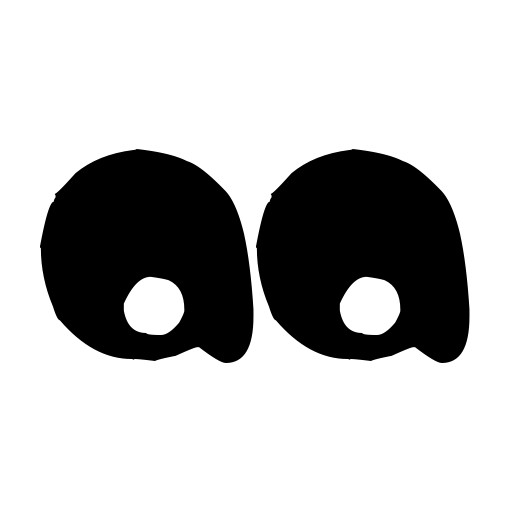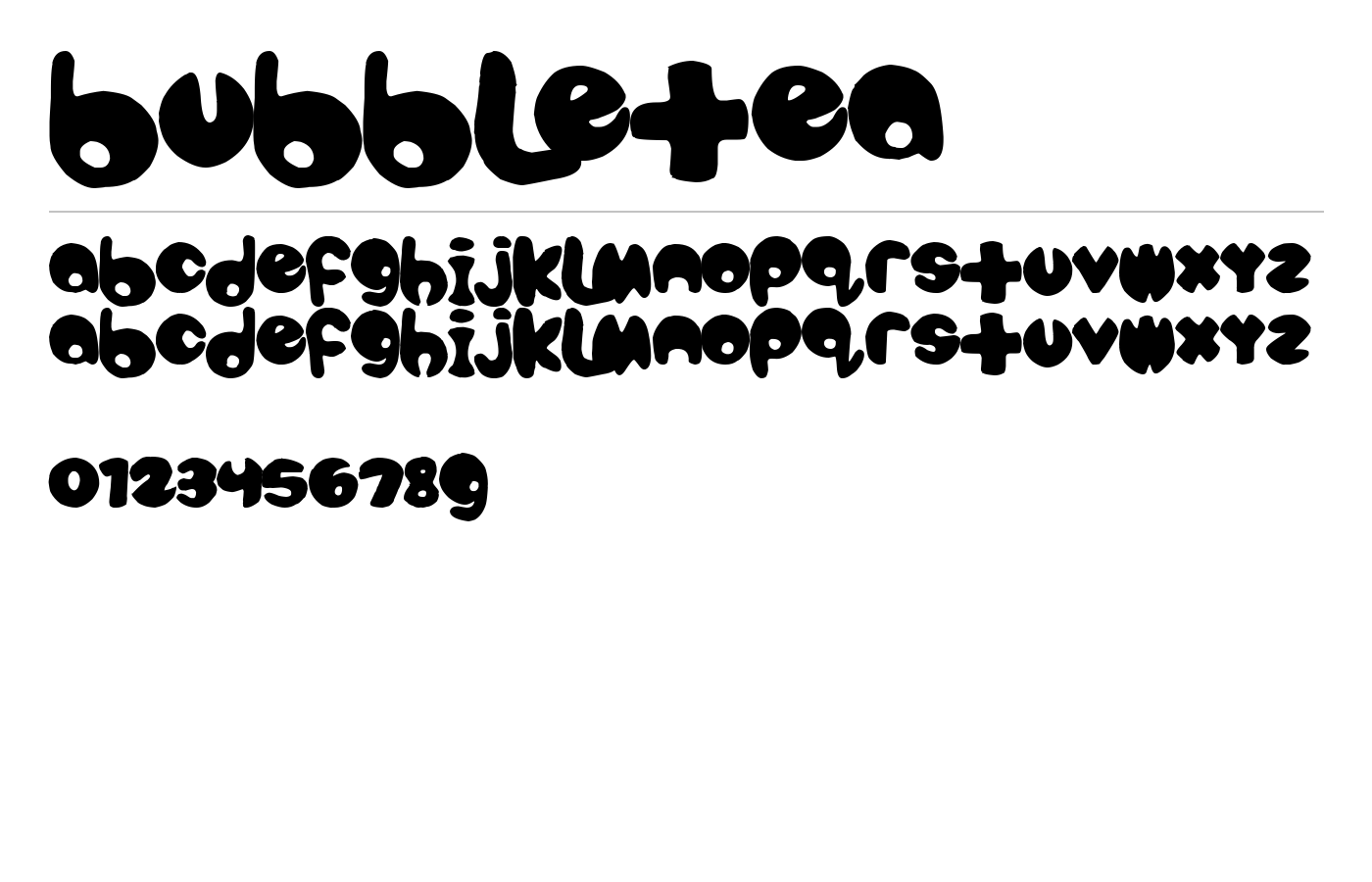
Bubbletea is a playful and bold sans serif font with chunky, rounded letterforms that evoke a fun and informal vibe. Its thick strokes and irregular shapes give it a hand-drawn, quirky personality, making it perfect for designs aimed at children, casual branding, or creative projects. This font works well in headlines, logos, and any context where a lively, approachable style is desired.
bubbletea Font
About bubbletea Font